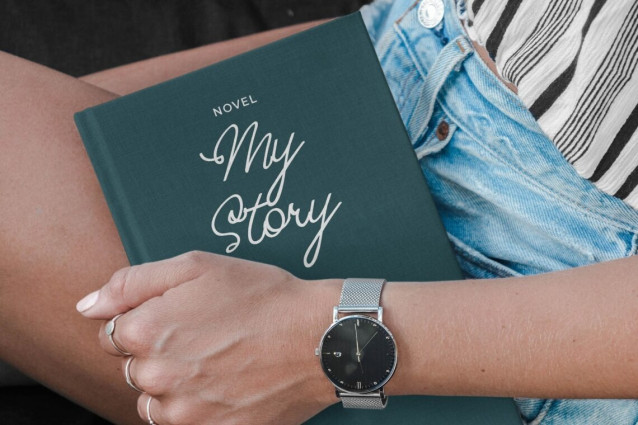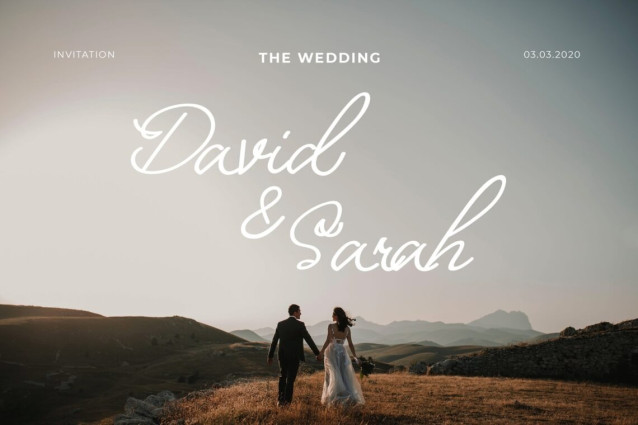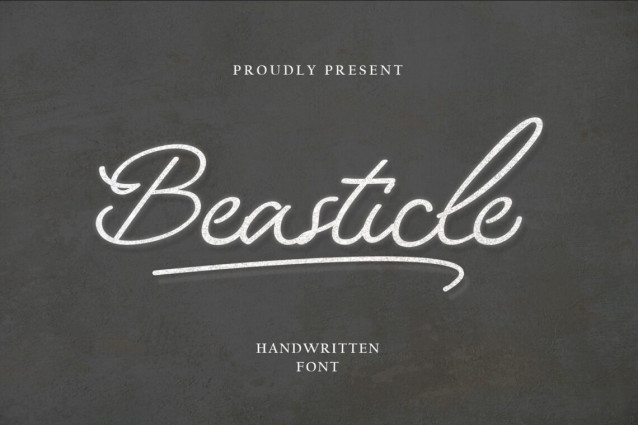
Beasticle Handwritten Style Font
Beasticle Handwritten Style is a type of script font. In combination and design, this font looks challenging and looks natural because there is a touch of the handwriting curve. This font has aesthetic typography and harmony and looks natural due to different typographic combinations. Includes a complete set of beautiful and natural uppercase and lowercase handwriting, numbers, various punctuation marks, and ligature. This font is included in modern script types so it is suitable for use in various fields of design and art such as crafts, photography, watermarks, fashion, social media posts, advertisements, logos & branding, invitations, product designs, labels, stationery, product packaging, special events, etc.